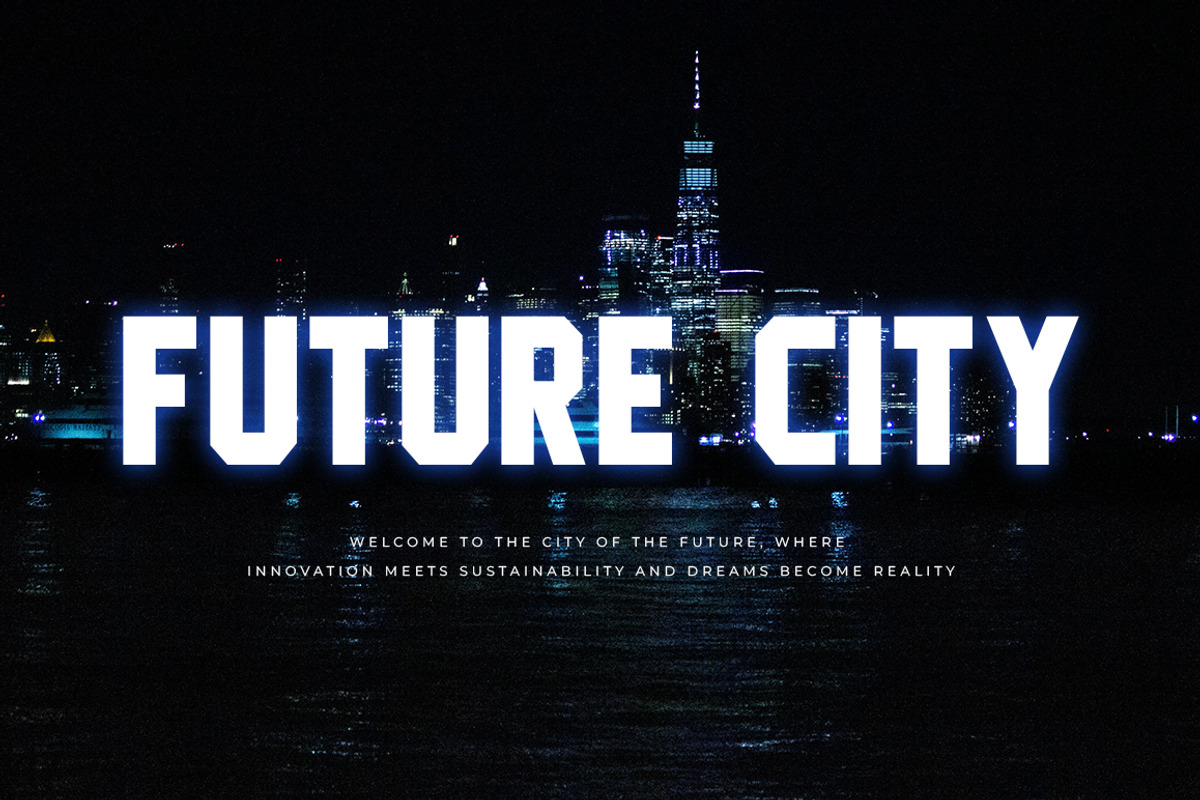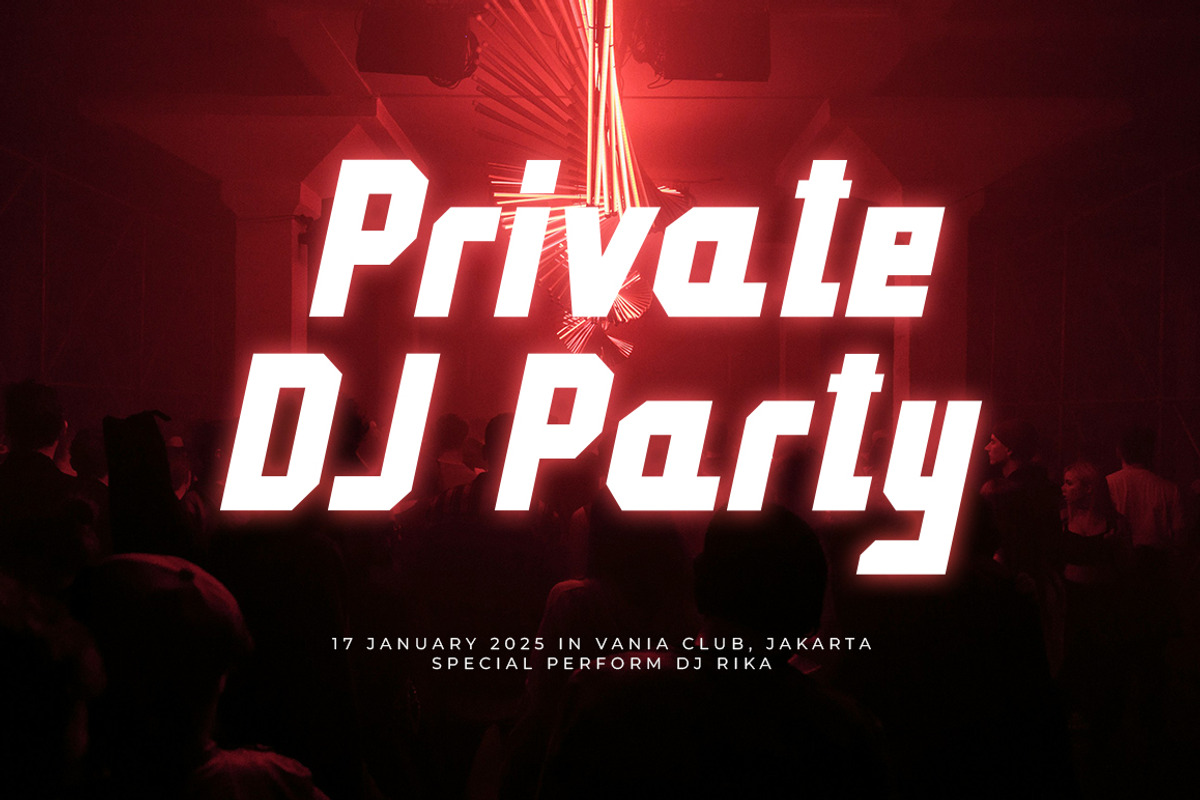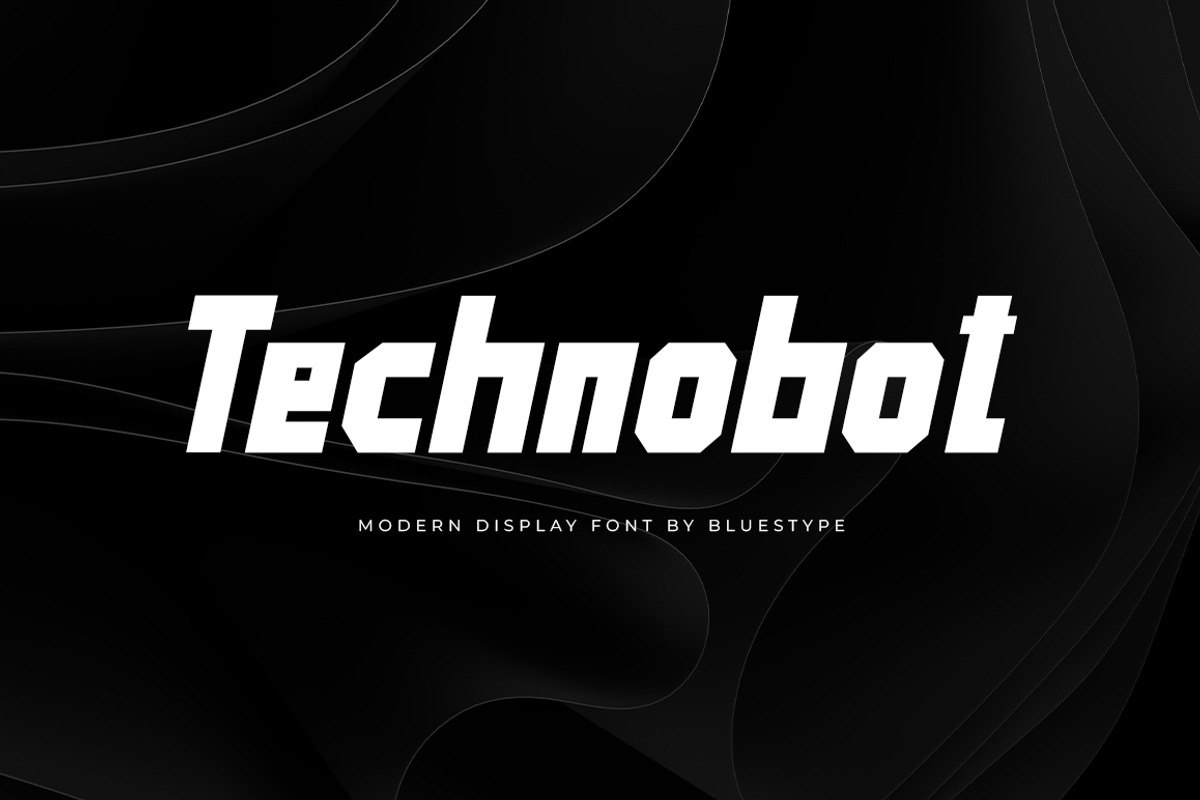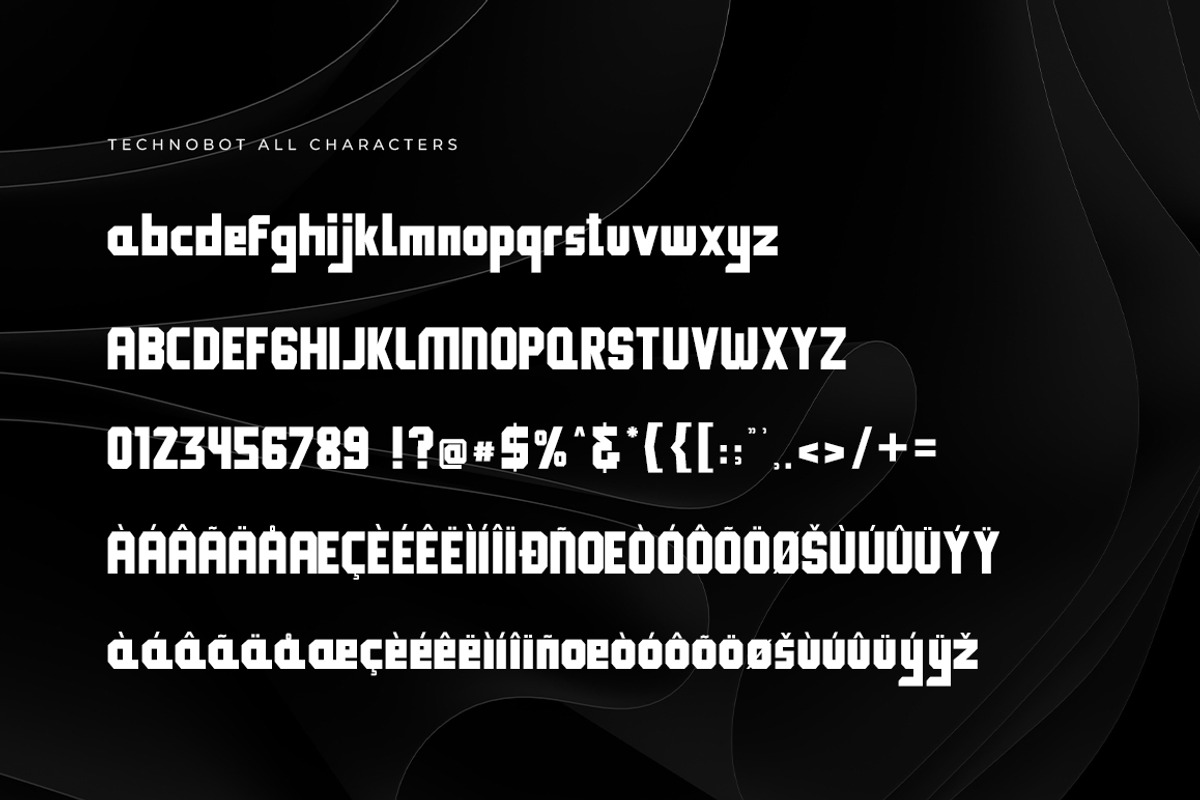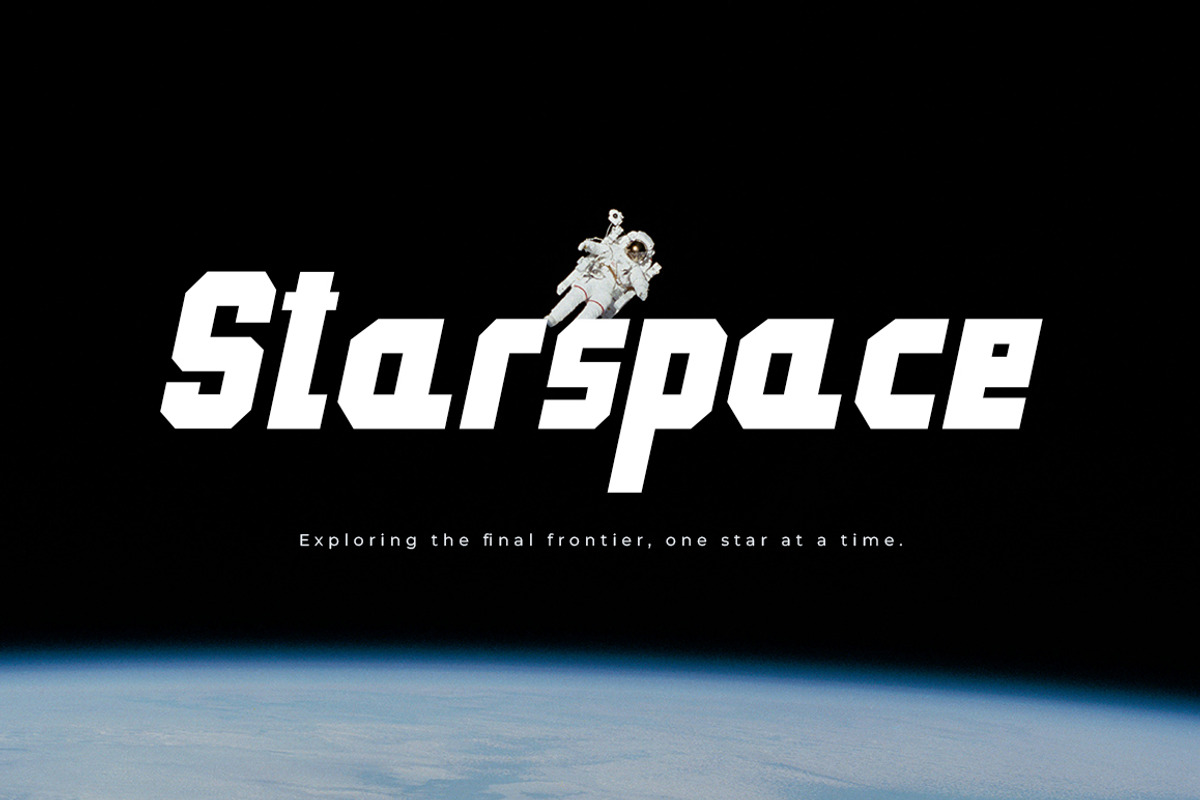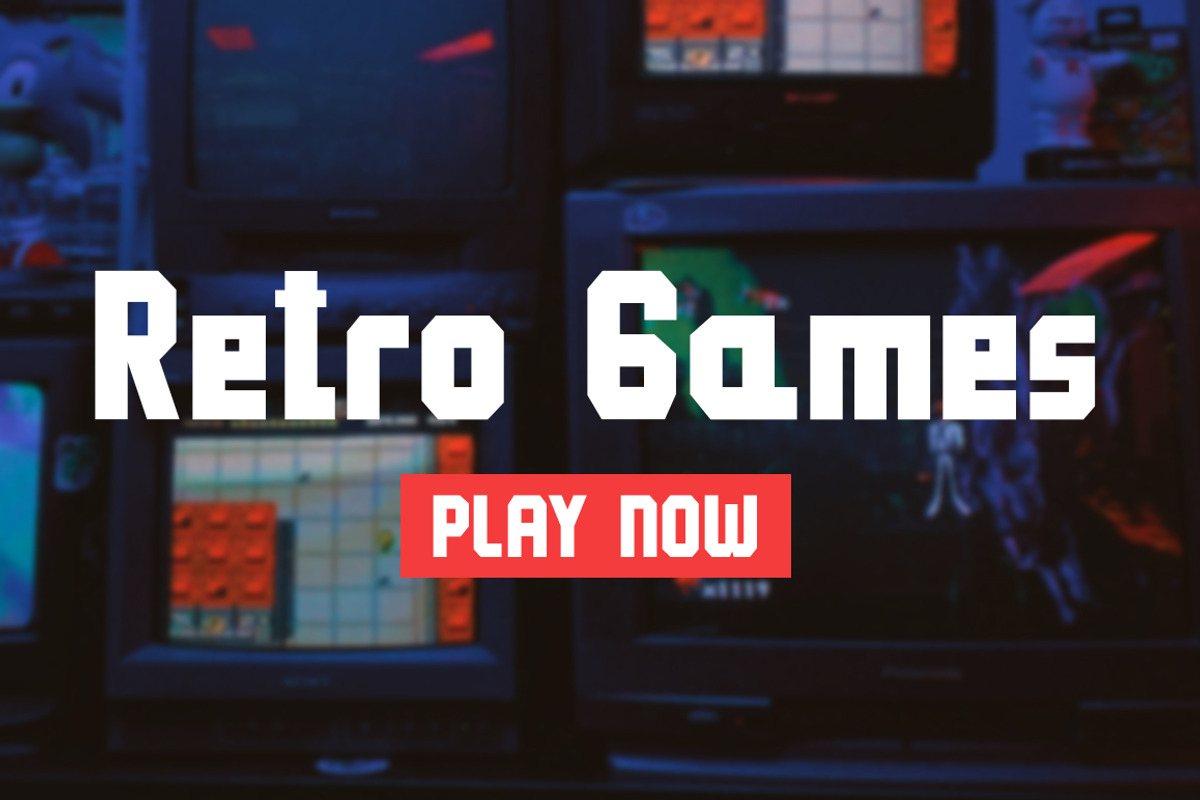
Technobot Font
Technobot is a bold, futuristic font that embodies the essence of modernity and technological progress. Inspired by themes of the future and robotics, Technobot features clean lines, geometric shapes and a distinctive, innovative aesthetic. Perfect for projects that require a sophisticated, forward-thinking look, Technobot brings a sense of the future to your designs.